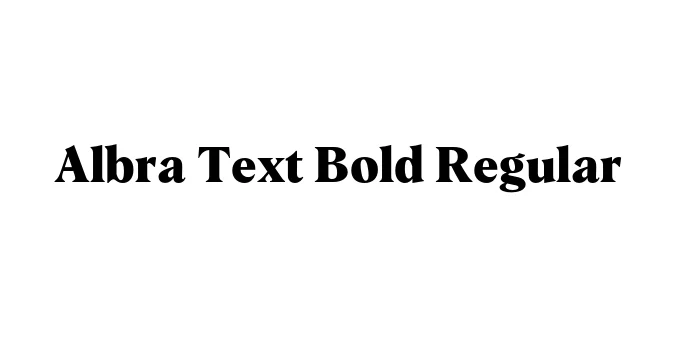
Albra Text Bold Regular
Designed by BumBumType (Tom Anders Watkins and Ellen Luff)
Albra Text Bold Regular is a sophisticated member of the Albra typeface family, meticulously crafted to bridge the gap between classic elegance and modern functionality. Developed by the design studio BumBumType, this font focuses on exceptional legibility, making it an ideal choice for body copy and extended reading materials. The Bold Regular weight provides a robust presence without sacrificing the delicate terminals and high-contrast strokes that define the Albra aesthetic.
Historically, the Albra series was designed to offer a timeless look that transcends fleeting design trends. Its proportions are inspired by traditional serif typefaces but refined with a contemporary sharpness. This specific Text variant features open apertures and generous spacing, ensuring that the characters remain distinct even at smaller point sizes, making it a favorite for editorial designers and luxury brand identities.
Albra Text Bold Regular Best Uses
Perfect for long-form articles in high-end magazines and journals.
Provides a sophisticated and established feel for premium lifestyle brands.
Highly legible for books, luxury brochures, and exhibition catalogs.
Excellent for professional blog posts and digital editorial content.